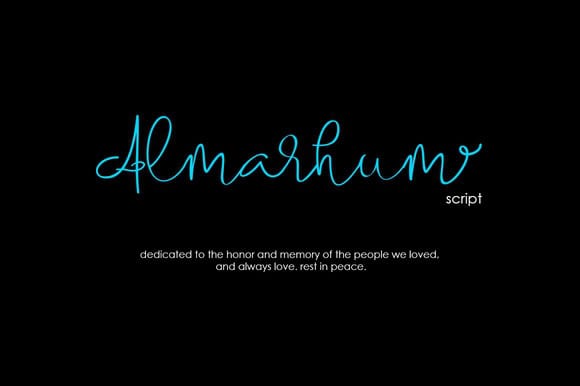
almarhum
Experience the Timeless Elegance of Almarhum Font
Almarhum Font, created by renowned designer Ahmed Khan in 2022, captures the essence of classic typography with its sophisticated curves and stylistic flourishes. This font is perfectly suited for various applications, including vintage-themed projects, artistic branding, and elegant print materials, making it a versatile choice for designers seeking a touch of timeless elegance.
The Creative Journey Behind Almarhum Font
Inspired by classical typography styles and the intricacies of calligraphy, Almarhum Font represents a harmonious blend of tradition and innovation. Ahmed Khan’s passion for font design is reflected in every character, showcasing an attention to detail that pays homage to historic lettering techniques while remaining relevant for contemporary use.
Ideal Applications for Almarhum Font
Perfect for a variety of design needs, Almarhum Font excels in print media, web design, branding, and packaging. Its distinctive style adds a refined touch to logos, business cards, invitations, and artistic projects, ensuring your work stands out with sophistication and grace.